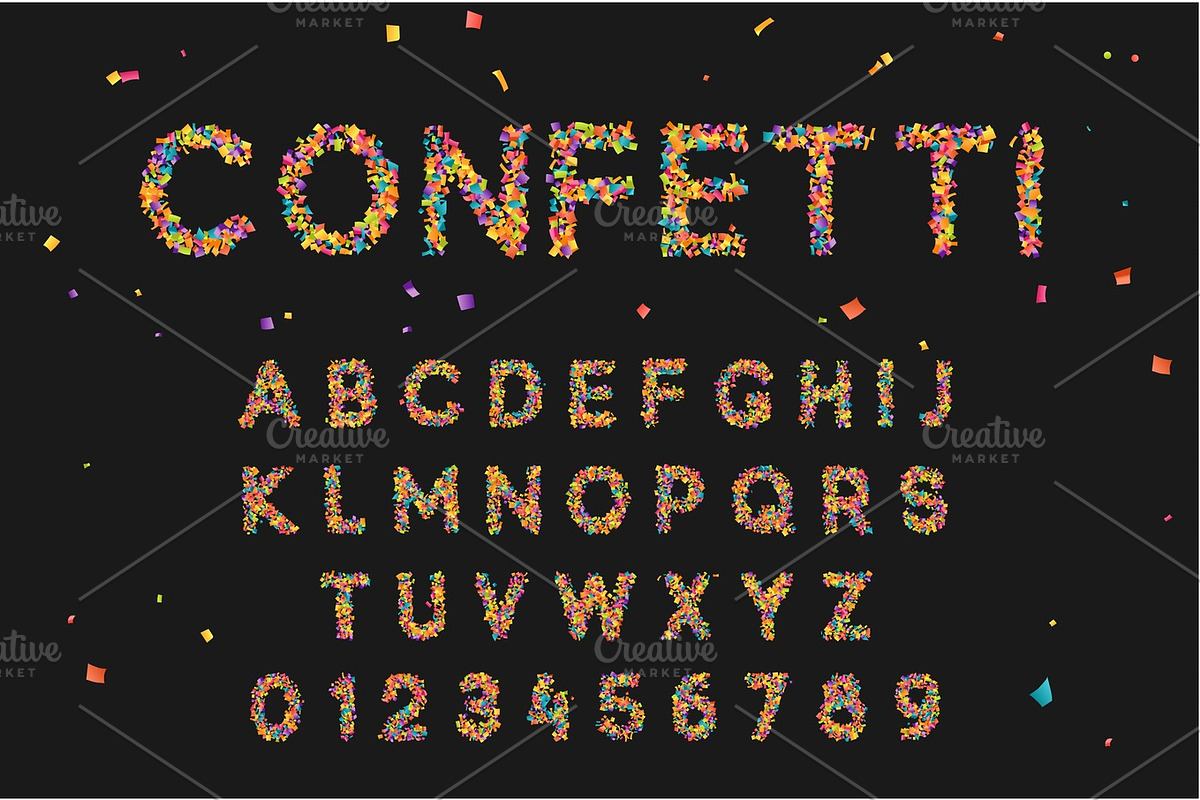
Colorful Font From Confetti Free Download
The Colorful Font From Confetti is perfect for party invitations, celebration banners, children's birthday cards, festival posters, carnival advertisements, wedding decorations, holiday greeting cards, event marketing materials, social media graphics, and festive packaging designs.
What makes this font so exciting is its vibrant, playful energy that instantly captures the joy and spontaneity of celebrations. The Colorful Font From Confetti brings a sense of festivity to any design project, with its dynamic letterforms that seem to dance across the page like actual confetti pieces. Each character is meticulously crafted to evoke the carefree spirit of parties and special occasions, making it an essential tool for designers who want to inject fun and excitement into their work.
This versatile typeface comes in multiple font families including Regular, Bold, Light, Italic, Bold Italic, Condensed, Extended, and Outline variations. Each family member maintains the distinctive confetti-inspired aesthetic while offering different weights and styles to suit various design needs. The Regular family provides excellent readability for body text, while the Bold family makes powerful headlines that command attention. The Light family offers a delicate touch for elegant invitations, and the Italic families add dynamic movement to your text.
Whether you're designing for digital platforms or print media, the Colorful Font From Confetti Free Download delivers exceptional versatility and visual impact. Its Unicode support ensures compatibility across different languages and platforms, while the carefully optimized kerning pairs guarantee professional-looking results every time. The font's extensive character set includes numerals, punctuation marks, and special symbols, making it suitable for comprehensive design projects.
Professional designers and creative enthusiasts alike will appreciate how this font transforms ordinary text into extraordinary visual experiences. The Colorful Font From Confetti seamlessly blends artistic flair with practical functionality, ensuring your messages not only communicate effectively but also create lasting emotional connections with your audience. Its celebratory nature makes it particularly valuable for brands in the entertainment, hospitality, and lifestyle sectors.